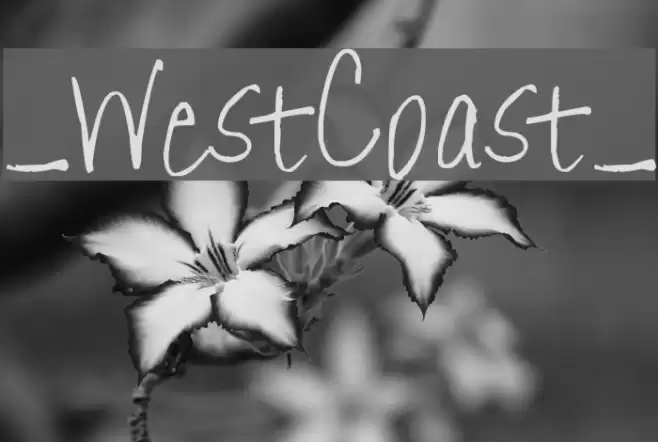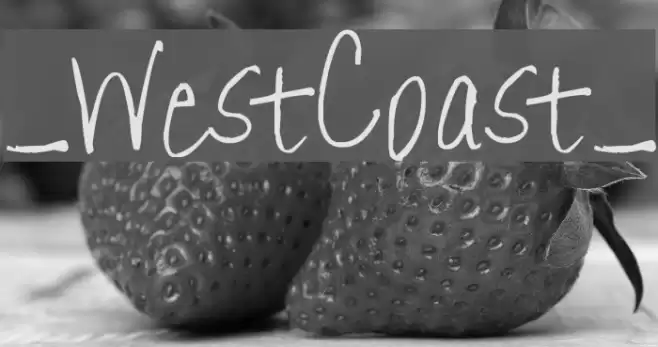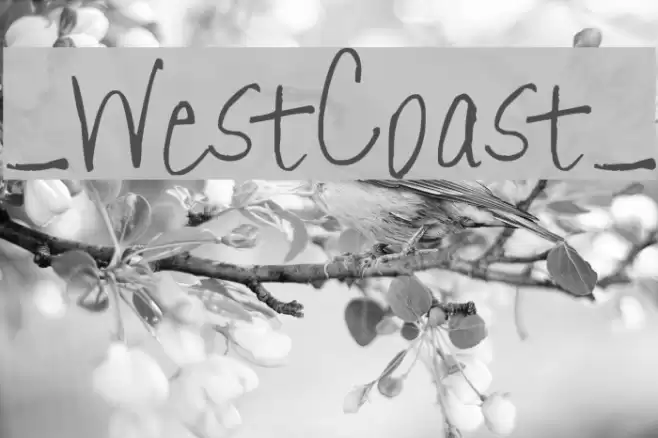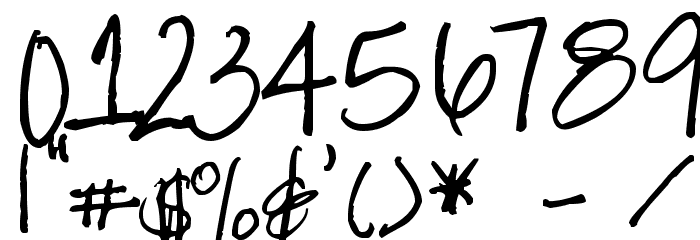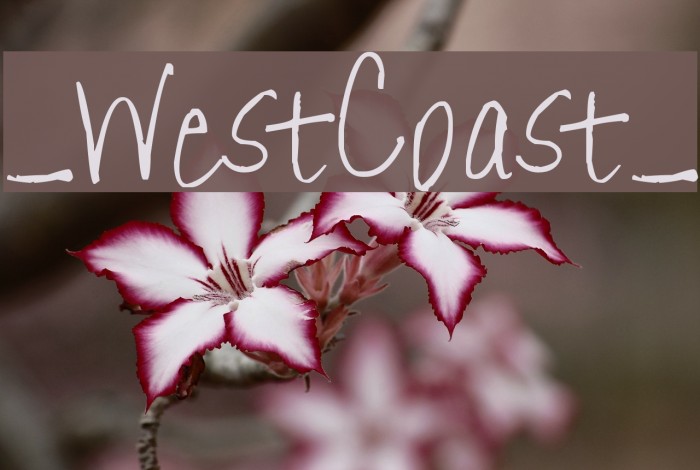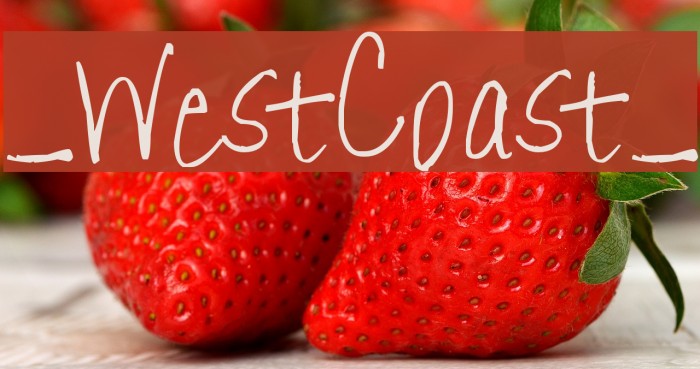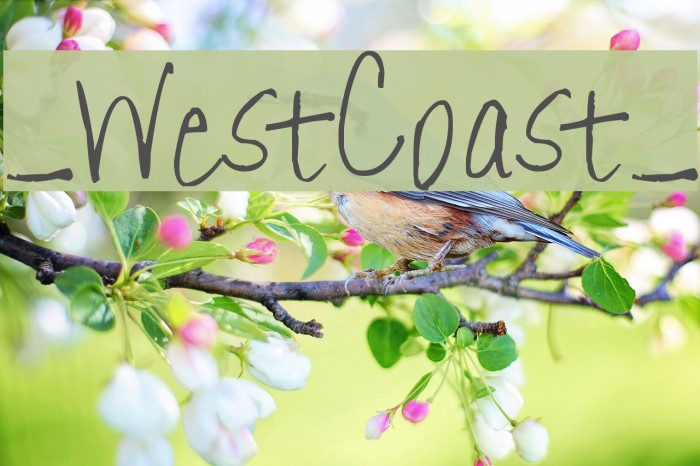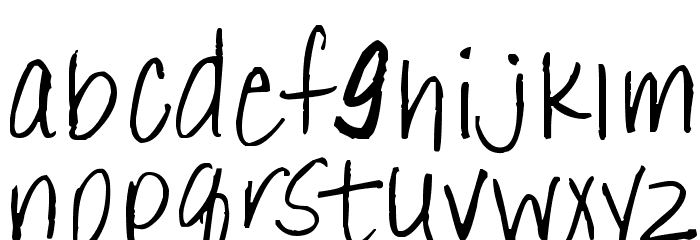
_WestCoast_ Font
_WestCoast_ Description
This font exudes a casual, handwritten style with a playful and informal vibe. The letters are unevenly shaped, mimicking the natural flow of handwriting, which adds a personal touch to any design. The strokes are varied in thickness, giving it a dynamic and lively appearance. The uppercase and lowercase letters are distinct, with some characters like 'g' and 'y' having unique, exaggerated loops. The numbers and special characters maintain the same handwritten aesthetic, ensuring consistency across all text elements.
A playful, handwritten font with varied stroke thickness and a casual style from Handwritten fonts.
- Proposed Projects: Ideal for personal projects, greeting cards, informal invitations, and creative branding.
- Overall Style: Casual, Playful
- Use Case: Logos, Headlines, Informal Text